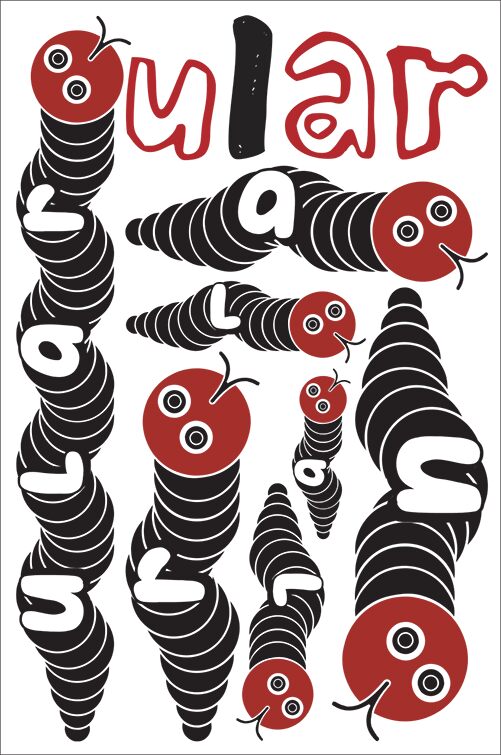
Ular Regular
Ular - a captivating display font designed by Vladimir Nikolic. This bold, decorative typeface exudes a striking, undulating presence. The dramatic, wave-like curves of each letterform command attention, their sweeping contours lending an air of dynamic movement and energy.
Ular's distinctive aesthetic lends itself effortlessly to attention-grabbing headlines, impactful branding, and visually striking design compositions. This font's bold, expressive nature makes it an ideal choice for packaging, poster designs, and other high-impact applications where a bold, distinctive typographic style is desired. Ular's versatility extends beyond display uses, as its unique character can also be effectively implemented in limited doses for emphasis within body text.
Embracing the font's unparalleled visual impact is the key to unlocking its full potential across a diverse range of creative projects.